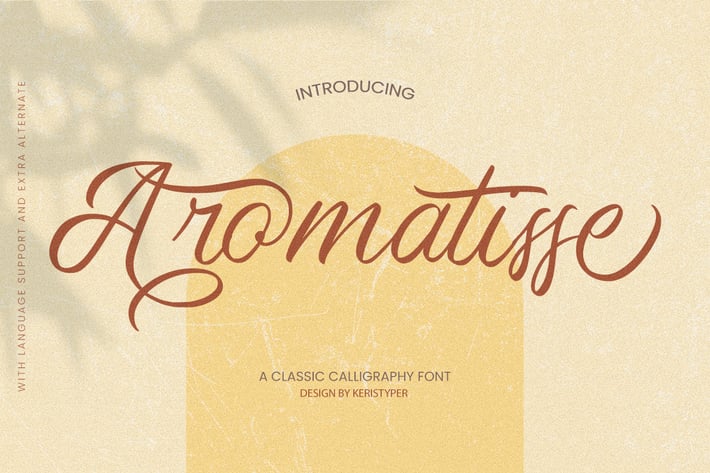
Aromatisse Classic Calligraphy Font
Proudly Introducing Aromatisse Classic Calligraphy Font. This classic font is handwritten under the inspiration of traditional calligraphy and the Vintage Era. In general, it creates a luxurious and elegant design look.
Aromatisse Classic Calligraphy Font multilingual support:
Standard & Multilingual glyphs